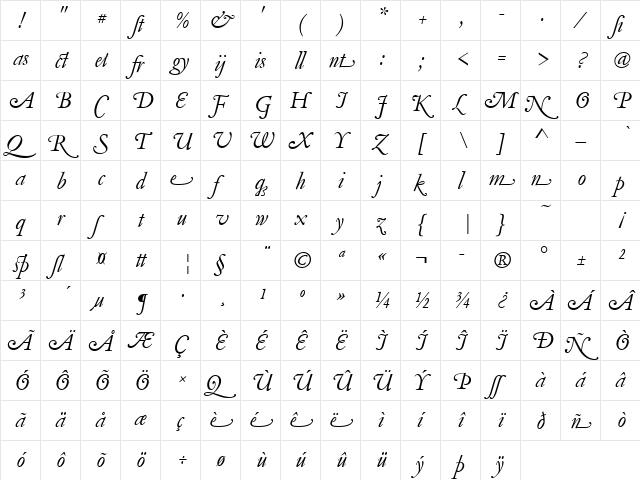
Garamond Becker No5 Swash Italic
Design Context for Garamond Becker No5 Swash Typeface
Garamond Becker No5 Swash brings a calligraphic fluidity to the page — its connecting strokes and expressive curves give it an unmistakably human quality.
Font Pairing: Combine Garamond Becker No5 Swash with a simple geometric sans for maximum contrast — the tension between flowing curves and clean structure is a classic typographic pairing.
Pro Tip: Pair Garamond Becker No5 Swash with a clean sans-serif for supporting text. The contrast between fluid script and geometric structure creates an elegant typographic hierarchy.